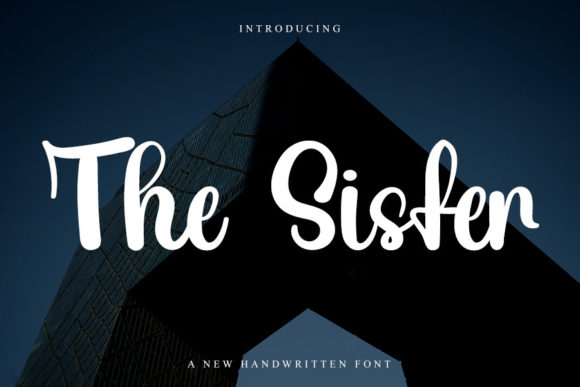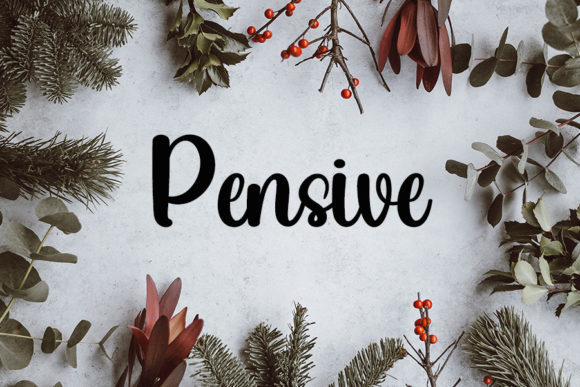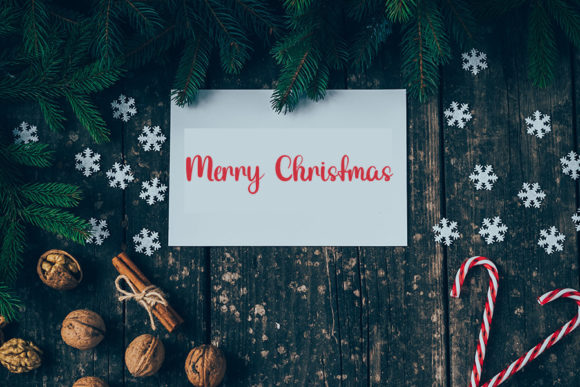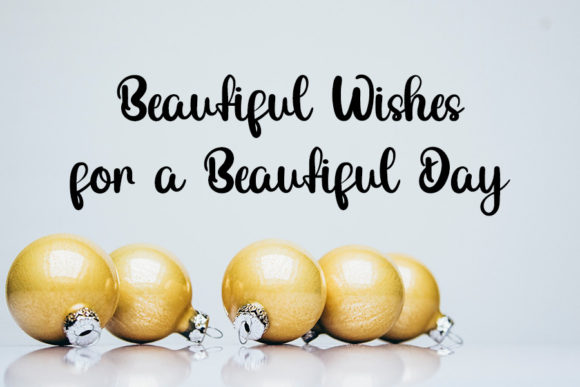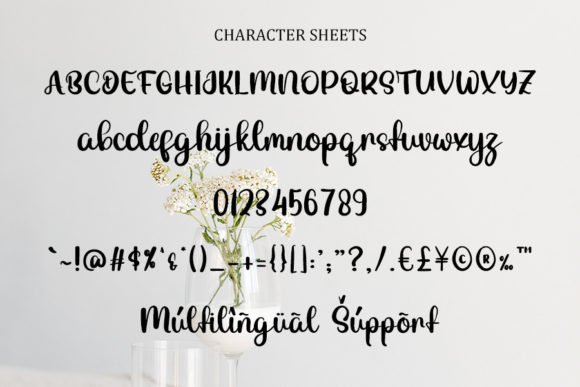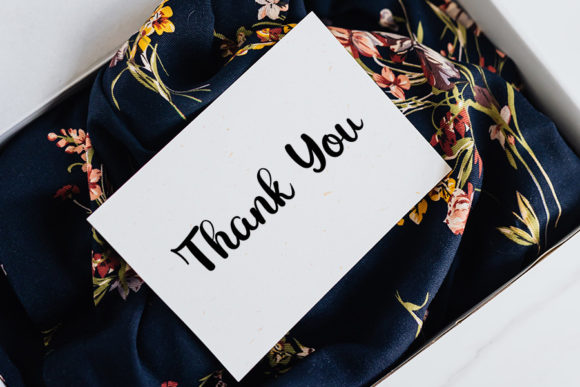
About The Sister Font
The Sister is a playful and smart-looking handwritten font. It is the ideal choice for creating eye-catching logos, branding, and quotes. Every letter has a unique and beautiful touch, which will make your design come alive!